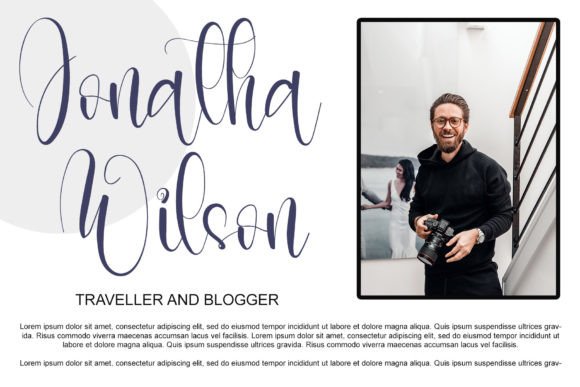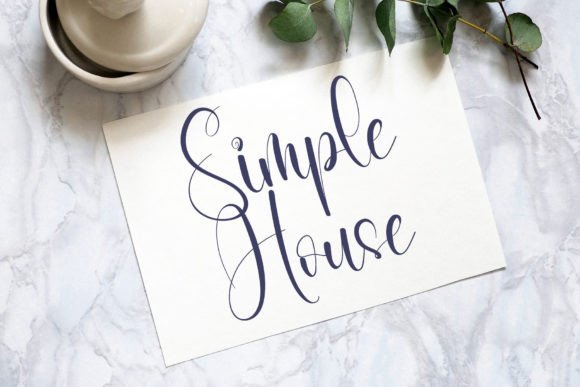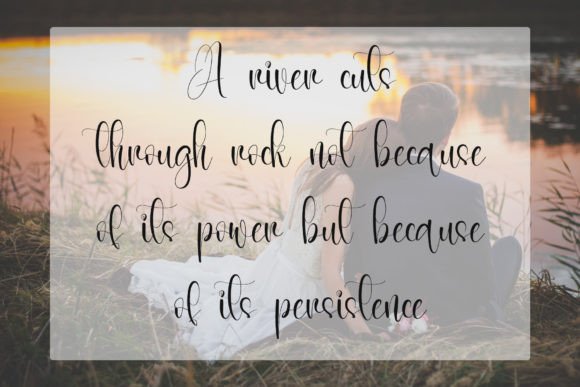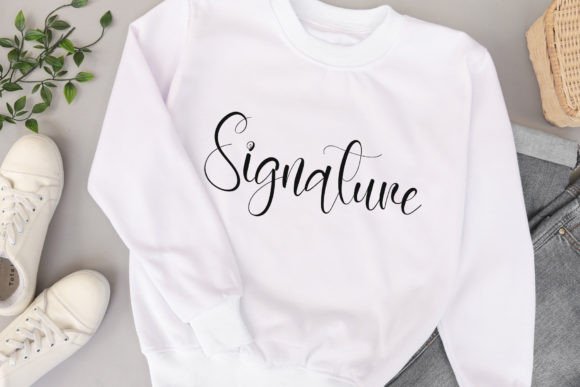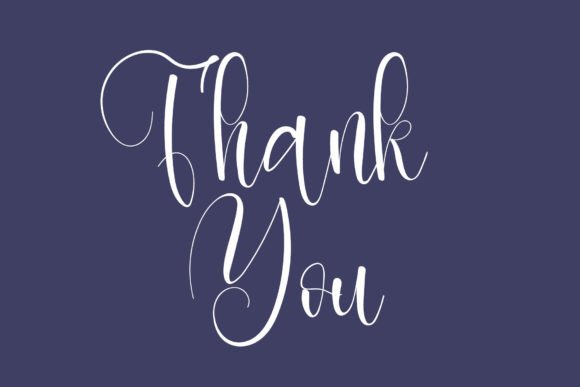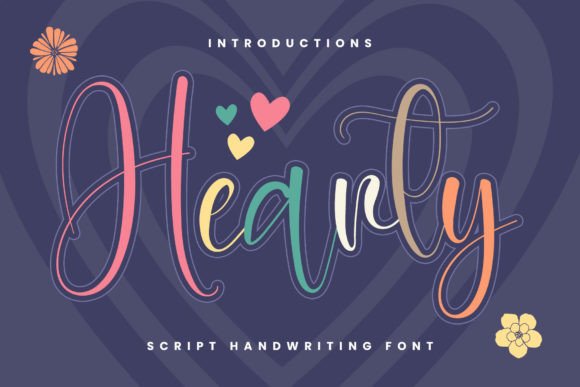
Introducing Hearty Font: Elevate Your Designs with Elegance and Whimsy
In the world of design, the right font can make all the difference. It can elevate your project from ordinary to extraordinary, convey the perfect tone, and leave a lasting impression on your audience. If you’re a designer, crafter, or DIY enthusiast looking for a font that exudes elegance and whimsy, look no further than Hearty Font. This magical handwritten font is carefully crafted to add a touch of sophistication and charm to your designs, making it perfect for a wide range of creative projects.
The Perfect Blend of Elegance and Whimsy
Hearty Font is a beautiful, handwritten script font that strikes the perfect balance between elegance and playfulness. Its flowing lines, delicate curves, and intricate details make it a true showstopper. Whether you’re looking to create stunning Instagram posts, elegant calligraphy scripts, or unique DIY projects, Hearty Font is the perfect choice. Its versatility and charm will turn any creative idea into a true piece of art, making it a must-have for designers and crafters alike.
What Makes Hearty Font So Special?
So, what sets Hearty Font apart from other fonts? Here are just a few reasons why this font is a cut above the rest:
• Magical Handwritten Style: Hearty Font is carefully crafted to mimic the look and feel of handwritten script. Its unique, flowing lines and delicate curves give it a personal touch that’s hard to replicate with digital fonts.
• Elegant and Whimsical: Hearty Font strikes the perfect balance between elegance and whimsy. Its intricate details and ornate flourishes make it perfect for designs that require a touch of sophistication and charm.
• Highly Versatile: Whether you’re creating Instagram posts, calligraphy scripts, or DIY projects, Hearty Font is the perfect choice. Its versatility makes it suitable for a wide range of creative projects.
Hearty Font is a dream come true for designers and crafters. Its unique, handwritten style and elegant, whimsical flair make it perfect for a wide range of creative projects, including:
• Instagram Posts: Add a touch of elegance and whimsy to your Instagram posts with Hearty Font. Its unique style and charm are sure to make your posts stand out.
• Calligraphy Scripts: Hearty Font is perfect for calligraphy scripts, adding a touch of sophistication and elegance to your DIY projects.
• DIY Projects: From handmade cards to decorative signs, Hearty Font is the perfect choice for DIY projects that require a personal touch.
In conclusion, Hearty Font is a magical handwritten font that’s sure to elevate your designs with elegance and whimsy. Its unique style, versatility, and charm make it perfect for a wide range of creative projects, from Instagram posts to DIY projects. Whether you’re a designer, crafter, or DIY enthusiast, Hearty Font is a must-have font that will turn any creative idea into a true piece of art.